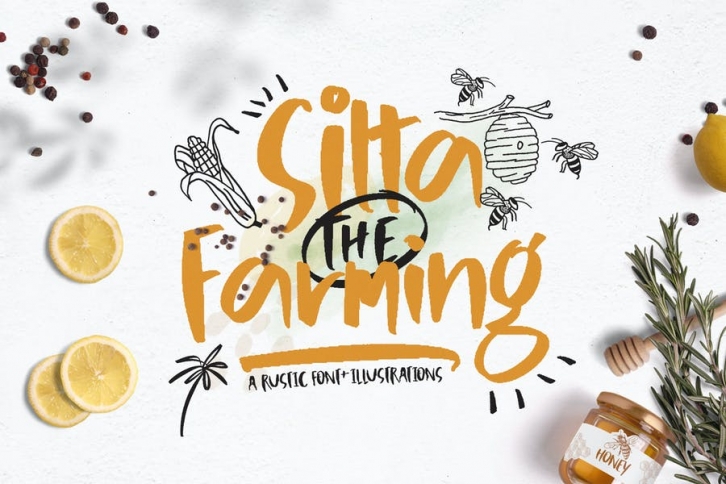
Silta The Farming come with Regular style, it will make this typeface can be used in all design projects and works perfectly for pairing with Display typeface or script fonts.
Try Silta The Farming, enjoy the richness of OpenType features and let her fun and elegant excitement make you happy and enhance your creativity! You can use this font very easily.